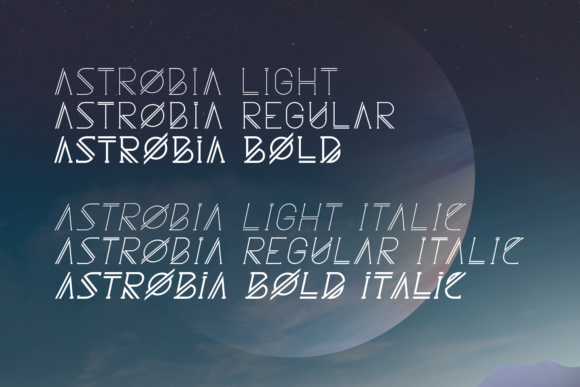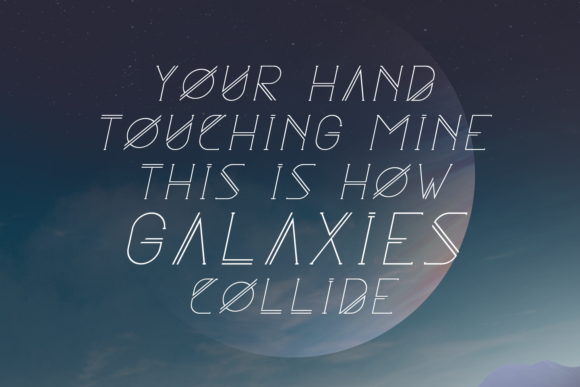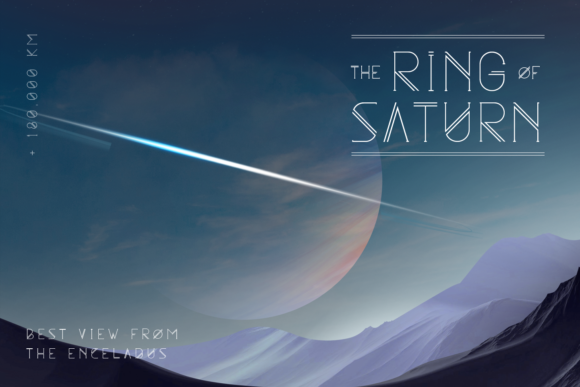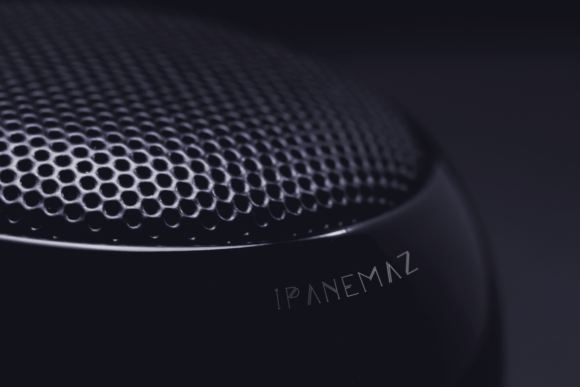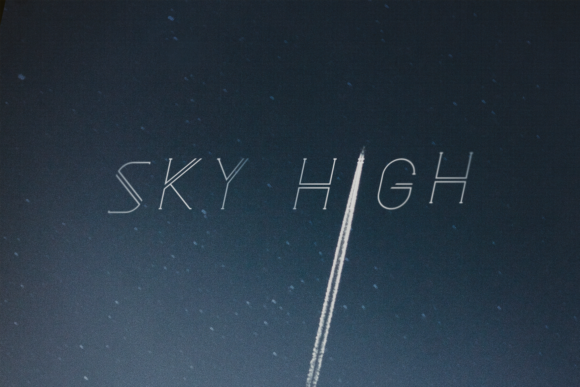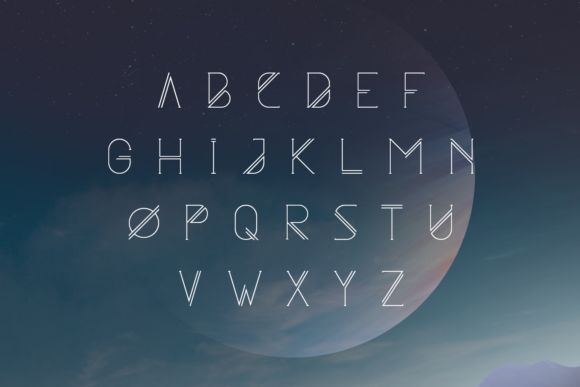
Discover the Cosmic Inspiration Behind the Astrobia Family Font
Have you ever stared up at the night sky and felt a surge of creative energy? The stars, the planets, the galaxies – they’re a never-ending source of inspiration for designers and artists. And what if you could tap into that cosmic energy and bring it to life in your designs? Introducing the Astrobia Family Font, a modern and futuristic display family that’s out of this world.
The Astrobia Family Font is designed to be versatile and adaptable, with 6 styles in 3 weights that will help you create multiple unique designs. Whether you’re working on a futuristic sci-fi project or a sleek and modern website, this font is the perfect companion for your creative journey. As a designer, you know how valuable a reliable and stylish font can be – and the Astrobia Family Font is sure to become your new go-to choice.
Astrobia Family Font Key Features
- Font Family: Astrobia Family Font is a collection of 12 fonts, each with its unique characteristics, making it suitable for various design needs.
- Unique Characteristics: The Astrobia Family Font features a unique blend of futuristic and cosmic elements, making it ideal for designs related to space, technology, and innovation.
Astrobia Family Font Review
I recently had the chance to work with the Astrobia Family Font, and I must say it’s a unique and eye-catching choice for digital design projects. ✨ The font’s futuristic aesthetic is perfect for sci-fi themed projects, and the clean lines make it easy to read, even at smaller font sizes. The Astrobia Family Font includes a wide range of weights, from thin to bold, which makes it versatile and suitable for various design applications.
Here are some of the things I like about the Astrobia Family Font:
- ✨ Clean and futuristic design aesthetic
- ✨ Wide range of weights, including thin and bold
- ✨ Easy to read, even at smaller font sizes
- ⚠️ Limited language support (only supports Latin-based languages)
- ⚠️ May not be suitable for projects that require a more traditional or classic look
- ⚠️ Some users may find the font’s bold weights too intense
Overall, the Astrobia Family Font is a solid choice for designers looking for a unique and futuristic font. While it may have some limitations, it’s a great option for projects that require a clean and modern aesthetic. With a bit of creativity, the Astrobia Family Font can be used to create stunning designs that stand out from the crowd.
The Astrobia Family Font is ideal for creating professional-looking designs and graphics, including:
– Business cards and marketing materials
– Infographics and presentations
– Brochures and flyers